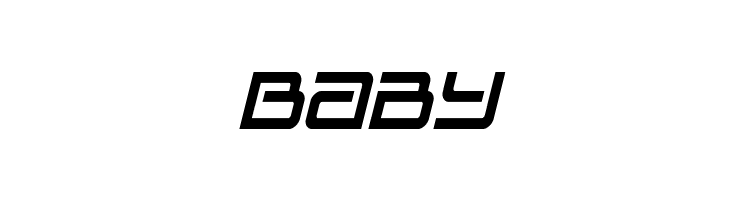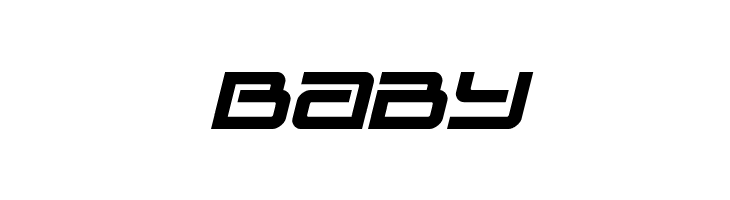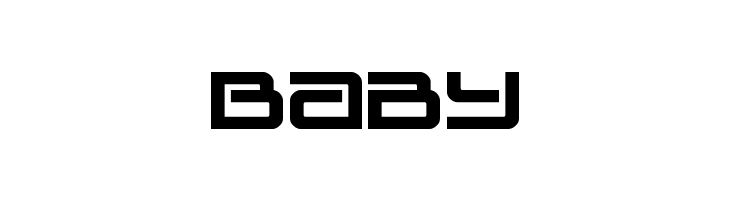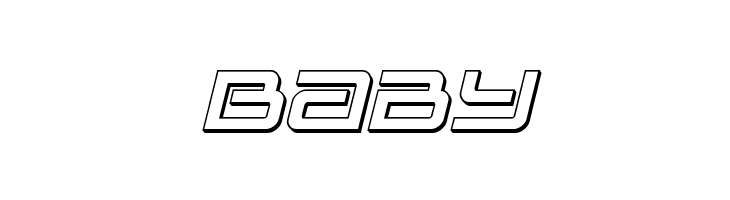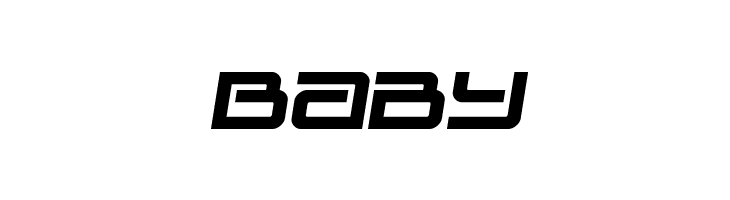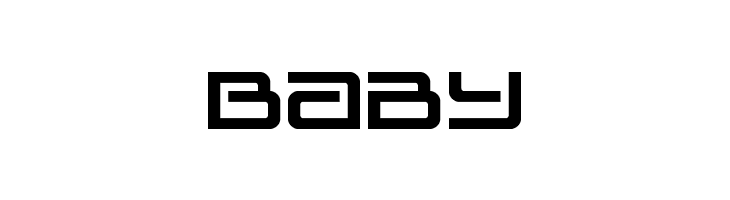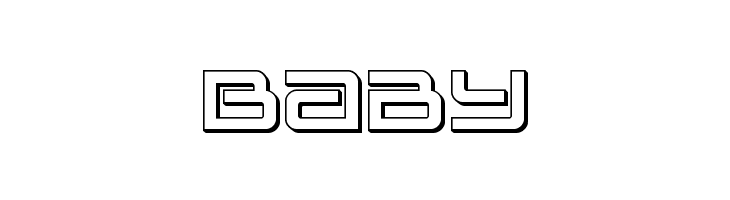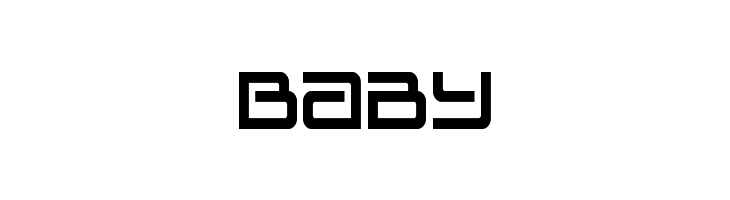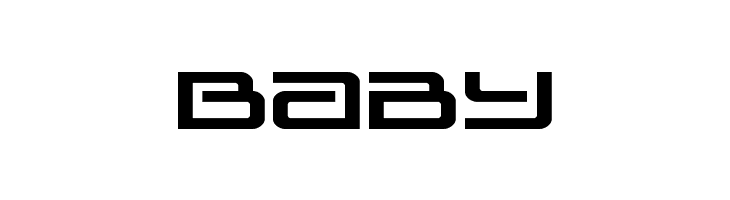
A classic, gothic-inspired font with sharp, angular lines and intricate details.
A modern, futuristic font with clean lines and circular accents.
A bold, geometric font with a strong, industrial style.
A bold, expressive script font with a hand-painted, brush-like texture.
A tall, narrow, and hand-drawn style font with an artistic flair.
A bold, expressive script font with a hand-painted, artistic style.
A bold, gothic-style font with sharp, angular edges and a dramatic flair.
A collection of ornamental symbols with tribal-like patterns, enclosed in frames.
A bold, expressive handwritten font with dynamic strokes and playful curves.
A bold, modern sans-serif font with geometric lines and uniform width.
A dynamic, brush-style font with expressive, cursive strokes.
A bold, cursive font with a pirate-inspired, adventurous style.
A bold, impactful font with strong, thick strokes for high visibility.
A bold, geometric font ideal for impactful headlines and logos.
A bold, italic font with strong strokes and a dynamic slant, perfect for impactful designs.
A bold, italic font with a dynamic and modern style.
A lively script font with fluid, cursive strokes and a natural handwritten feel.
A bold, high-contrast serif font with elegant curves and dramatic strokes.
A bold, gothic blackletter font with intricate detailing and a historical flair.
An elegant, flowing script font with intricate loops and swashes.
A bold, high-contrast serif font with decorative elements and a vintage-modern aesthetic.
A bold, hand-drawn font with dynamic strokes and a textured finish.
A bold, playful font with a hand-drawn, rounded style.
A classic blackletter font with intricate, angular designs and dramatic flourishes.
An ornate Blackletter font with gothic, medieval characteristics.
A bold, ornate Blackletter font with gothic and medieval influences.
Ornamental flourishes with a vintage, decorative style.
Ornamental designs for decorative use.
A bold, geometric font with a modern and assertive style.
A playful script font with smooth, connected strokes and rounded edges.
An elegant, flowing script font with thin, delicate strokes and a natural handwriting style.
A bold, ornate blackletter font with high contrast and sharp serifs.
A bold, gothic-style font with intricate serifs and dramatic strokes.
A bold, distressed stencil-style font with a rugged, industrial look.